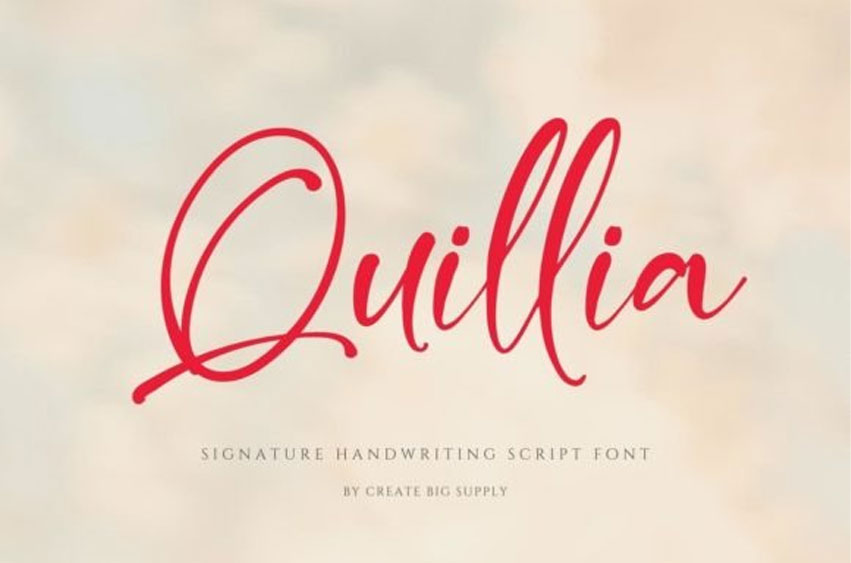
Quillia Font is a bold and expressive signature handwriting script font. With its natural and flowing strokes, Quillia adds a touch of elegance and authenticity to your designs. Whether you’re creating logos, branding materials, invitations, or any project that requires a personal touch, Quillia is the perfect choice.
This font features both uppercase and lowercase letters, numbers, punctuations, multilingual support, ligatures, and PUA encoding for easy access to special characters. Enhance your designs with the distinctive charm of Quillia Signature Handwriting Script Font. Download now and unleash your creativity.